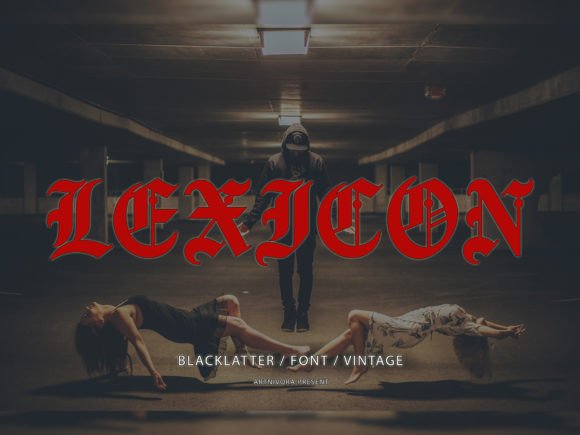
Be bold and distinct with Lexicon, a blackletter font that exudes elegance and sophistication. Its intricate letterforms capture the essence of tradition while maintaining a modern and contemporary appeal. Whether you're designing captivating logos, stylish magazines, engaging social media posts, professional brochures, or any other creative project, Lexicon will elevate your designs to new heights.
Unleash your creativity and let Lexicon's captivating curves and sharp edges add a touch of timeless beauty to your work. Its unique aesthetic will leave a lasting impression on your audience, ensuring that your designs stand out from the crowd.
Crafted with precision and attention to detail, Lexicon offers a versatile range of weights and styles to suit your every design need. Its bold and robust strokes convey strength and confidence, while its lighter weights add a touch of delicate sophistication. Experiment with different combinations to achieve the perfect balance between impact and elegance.
But what truly sets Lexicon apart is its ability to evoke emotions and connect with your audience on a deeper level. Its intricate details and timeless design create a sense of nostalgia and charm, transporting viewers to a bygone era of handcrafted artistry. Embrace the power of Lexicon to create designs that resonate with your audience and leave a lasting impact.